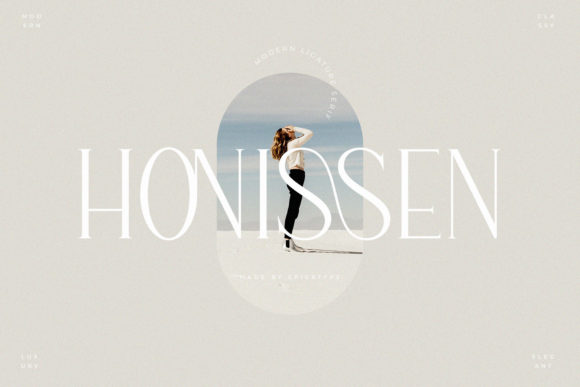
**Experience the Timeless Beauty of Honissen: A Serif Font That Captivates**
Prepare to be captivated by Honissen, an extraordinary serif font meticulously crafted to ignite your creativity and leave an unforgettable impression. Honissen embodies a harmonious blend of classic elegance and contemporary flair, effortlessly bridging the gap between tradition and innovation.
Indulge in the exquisite curves and alluring high-contrast glyphs that define Honissen's captivating nature. This remarkable font exudes a mesmerizing feminine charm, gracefully intertwining with a touch of masculinity, creating a captivating aura that will enchant your audience.
**Unleash Your Creative Vision with Honissen**
Unleash the boundless potential of Honissen, a font tailored to elevate your design aspirations. Whether you seek to craft captivating quotes that resonate with your audience or compose compelling body copy that captivates their attention, Honissen empowers you to convey your message with unparalleled sophistication and style.
Imagine your logo design adorned with the distinctive charm of Honissen. Its unique character will transform your brand identity into an unforgettable symbol, etching itself into the minds of your customers and setting you apart from the ordinary.
**Honissen: The Ultimate Font for Presentation**
Prepare to captivate your audience with presentations that exude confidence and leave a lasting impression. Honissen's meticulously crafted ligatures seamlessly elevate your presentations, transforming them into captivating masterpieces that engage and inspire your listeners.
With Honissen, you possess the power to communicate your ideas with unparalleled clarity and impact. Its elegant curves and striking contrast guide your audience's eyes effortlessly through your slides, ensuring your message is received with clarity and enthusiasm.
**Embrace the Allure of Honissen**
Honissen is more than just a font; it's an invitation to embark on a creative journey where imagination knows no bounds. Its versatility empowers you to express yourself authentically, whether you're designing stunning logos, crafting unforgettable quotes, or composing captivating body copy.
Indulge in the allure of Honissen and witness the transformation of your designs. Its timeless beauty and modern sensibility will elevate your creations to new heights of sophistication, leaving an indelible mark on your audience's hearts and minds.